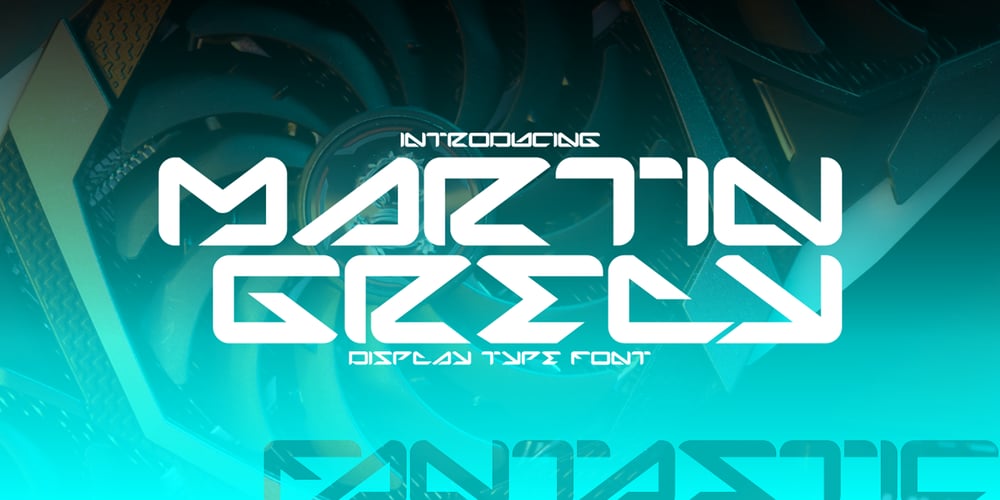
Martin Grely
Martin Grely font
Martin Grely Font Family was designed by Sipanji and published by Sipanji21. Martin Grely contains 1 styles and family package options. “Martin Grely” is a sleek display font with a futuristic theme. It is well-suited for a variety of design projects that revolve around futuristic or space-related themes. Whether used in headlines, posters, advertisements, or other design applications, “Martin Grely” brings a futuristic and streamlined aesthetic to your typography.